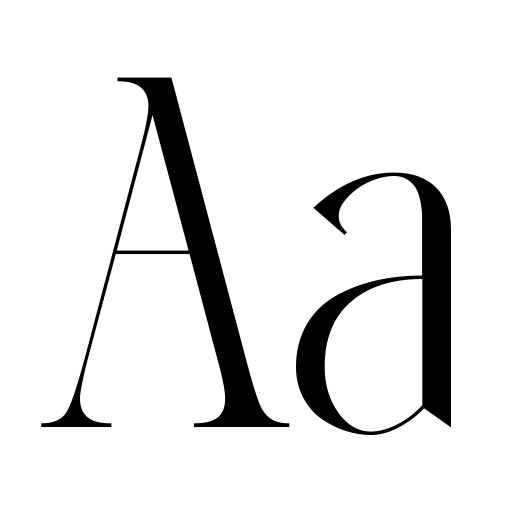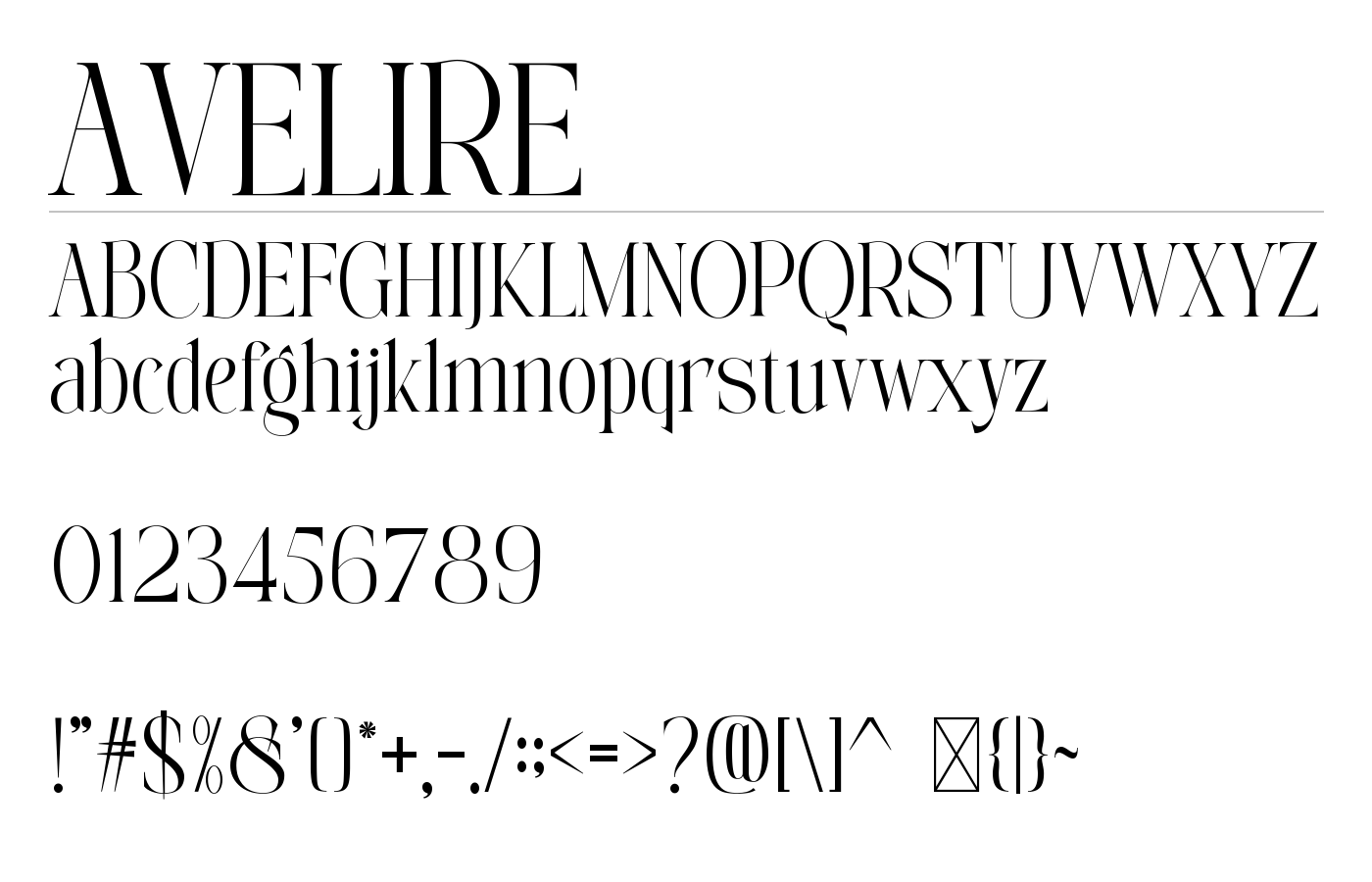
AVELIRE is a sophisticated serif font with a high contrast between its thin and thick strokes, featuring elegant, narrow letterforms and delicate, bracketed serifs. Its refined and stylish appearance makes it ideal for luxury branding, high-end editorial use, and elegant headlines where a touch of classic modernity and grace is desired. This font’s sleek, elongated design lends a sophisticated and timeless feel perfect for fashion, beauty, and upscale design projects.
AVELIRE Font
About AVELIRE Font